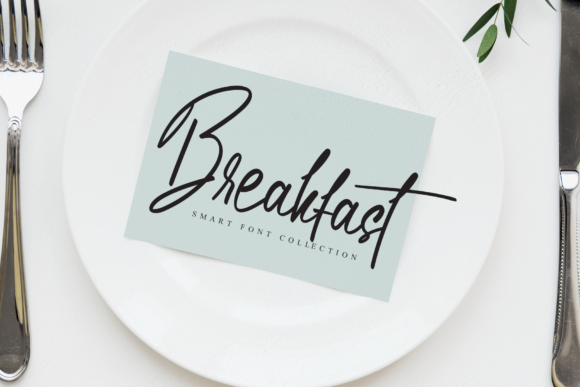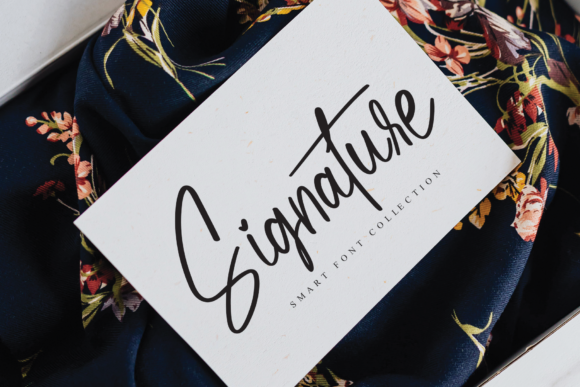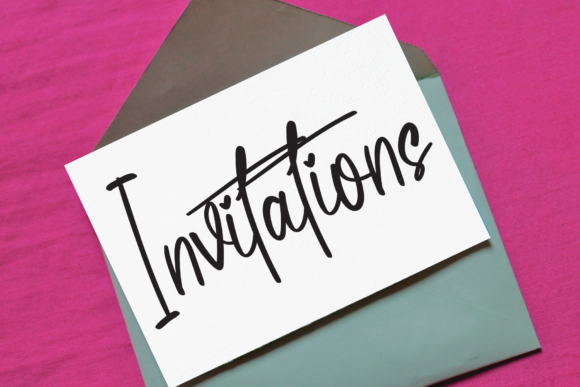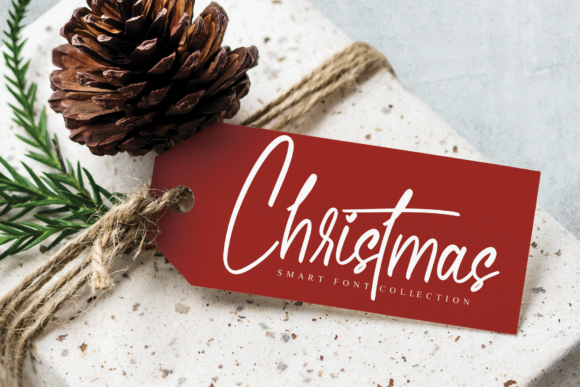
Bittersweet Font: A Timeless Handwritten Style for Your Designs
Are you looking for a font that can add a touch of elegance and sophistication to your designs? Look no further than the Bittersweet Font. This lovely and timeless handwritten font is perfect for creating eye-catching logos, branding, and quotes that will leave a lasting impression on your audience.
What Makes Bittersweet Font So Special?
The Bittersweet Font is a unique and beautiful handwritten font that is sure to make your design come alive. Every letter has a distinctive and elegant touch that sets it apart from other fonts. The font’s timeless style ensures that it will remain relevant and fashionable for years to come, making it a great investment for designers and crafters.
The Bittersweet Font is ideal for creating stunning logos, branding, and quotes that will capture the attention of your audience. Its elegant and sophisticated style makes it perfect for businesses and individuals who want to create a professional and luxurious image. Whether you’re designing a logo, business card, or social media post, this font is sure to make your design stand out.
Unique and Beautiful Touch
One of the standout features of the Bittersweet Font is its unique and beautiful touch. Every letter is carefully crafted to ensure that it has a distinctive and elegant style that will add a touch of sophistication to your design. The font’s unique touch will also help to create a consistent and recognizable brand identity that will set you apart from your competitors.
Why Choose Bittersweet Font?
There are many reasons why you should choose the Bittersweet Font for your designs. Here are just a few:
- Timeless style: The Bittersweet Font has a timeless style that will remain relevant and fashionable for years to come.
- Unique and beautiful touch: Every letter has a distinctive and elegant touch that will add a touch of sophistication to your design.
- Perfect for logos and branding: The font is ideal for creating stunning logos, branding, and quotes that will capture the attention of your audience.
- Elegant and sophisticated: The font’s elegant and sophisticated style makes it perfect for businesses and individuals who want to create a professional and luxurious image.
How to Use Bittersweet Font
The Bittersweet Font is easy to use and can be incorporated into a variety of design projects. Here are a few ways you can use this beautiful font:
- Logos and branding: Use the Bittersweet Font to create stunning logos and branding that will capture the attention of your audience.
- Social media posts: Add a touch of elegance and sophistication to your social media posts with the Bittersweet Font.
- Business cards: Use the font to create beautiful and professional business cards that will make a lasting impression.
- Quotes and posters: The Bittersweet Font is perfect for creating eye-catching quotes and posters that will inspire and motivate your audience.
In conclusion, the Bittersweet Font is a lovely and timeless handwritten font that is perfect for designers and crafters who want to add a touch of elegance and sophistication to their designs. Its unique and beautiful touch, combined with its timeless style, makes it a great investment for anyone who wants to create stunning logos, branding, and quotes. So why wait? Download the Bittersweet Font today and start creating beautiful designs that will leave a lasting impression on your audience.
Key Features of Bittersweet Font
- Handwritten font
- Timeless style
- Unique and beautiful touch
- Perfect for logos, branding, and quotes
- Elegant and sophisticated
- Easy to use
Whether you’re a designer, crafter, or business owner, the Bittersweet Font is a great choice for anyone who wants to create beautiful and professional designs. So why not give it a try today and see the difference it can make in your designs?